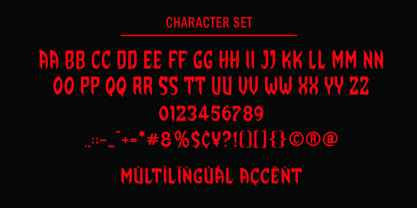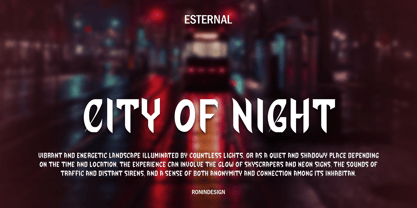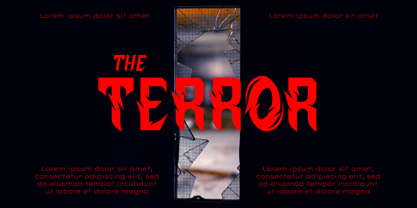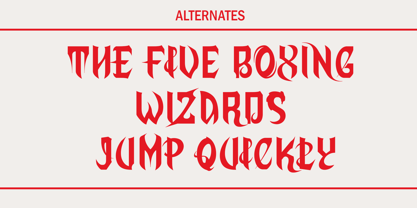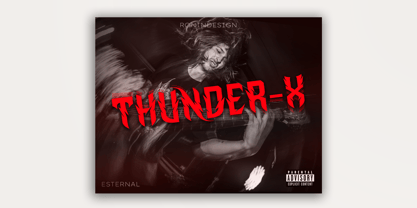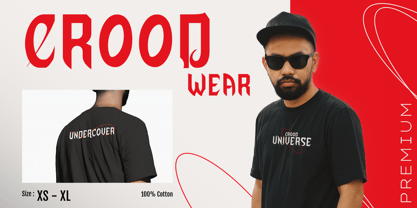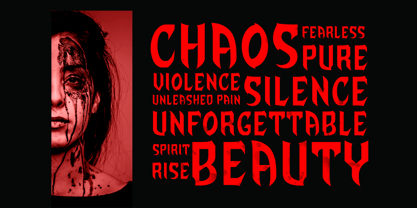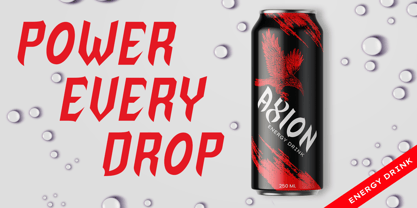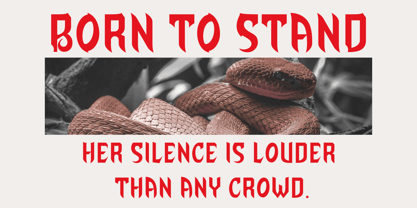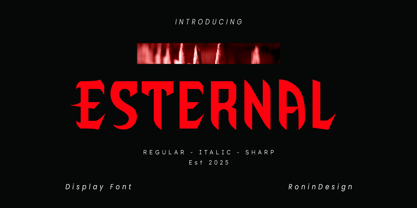
Esternal
by Ronin Design
The Esternal Font Family was designed by RoninDesign and published by Ronin Design. Esternal contains 3 styles and family package options.
Esternal is a bold display typeface designed for high-impact visual presence. Featuring sharp edges, angular cuts, and a modern gothic influence, this font delivers strong personality and unmistakable attitude. Perfect for branding, merchandise, album covers, posters, gaming visuals, and many more. With three distinct styles — Regular, Italic, and Sharp — Esternal offers flexibility while maintaining a fierce and dominant visual identity. Features : • Esternal Regular, Italic and Sharp • All caps • Various alternates • Ton of glyphs • Multilingual accent • PUA encoded characters